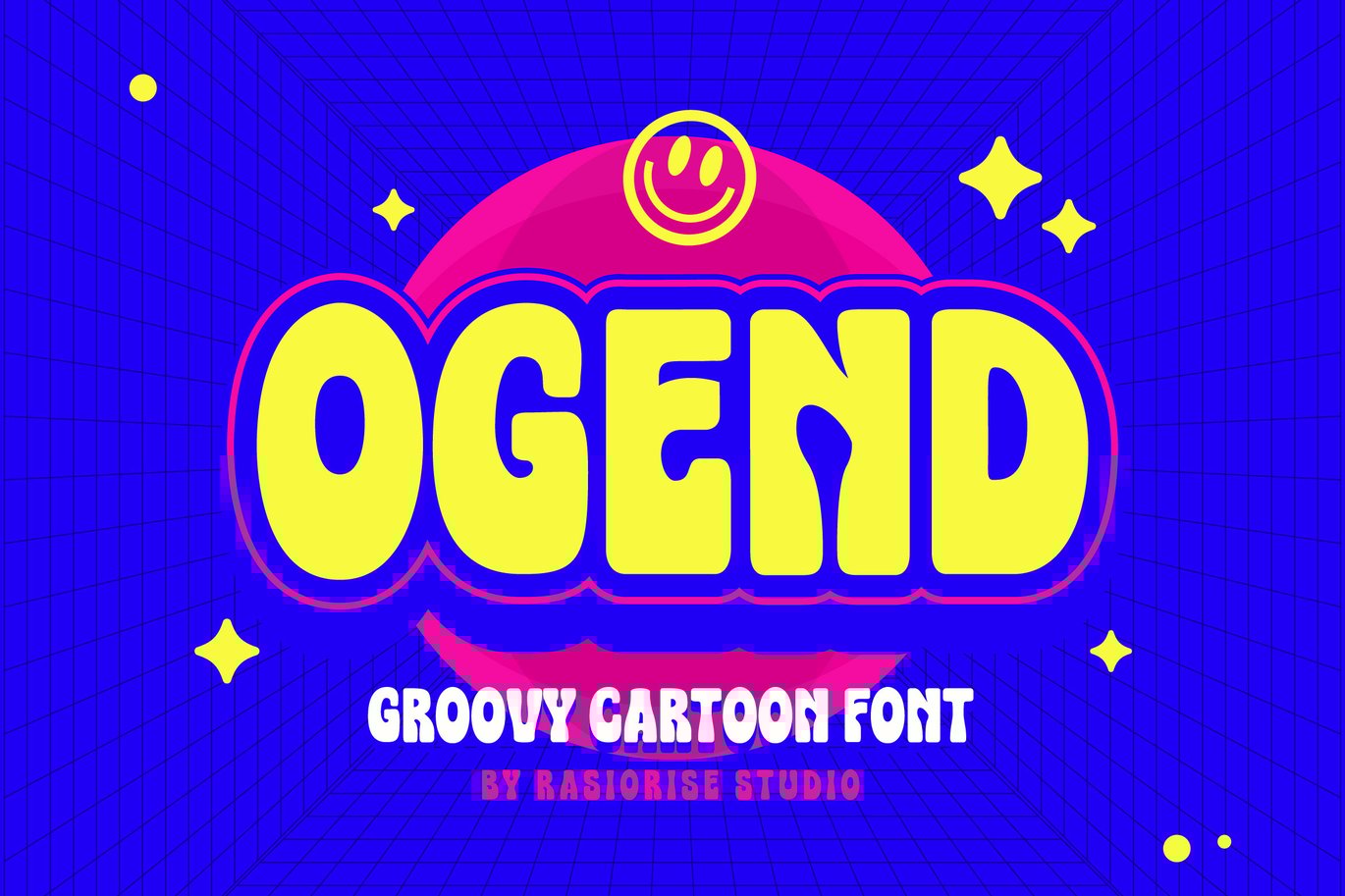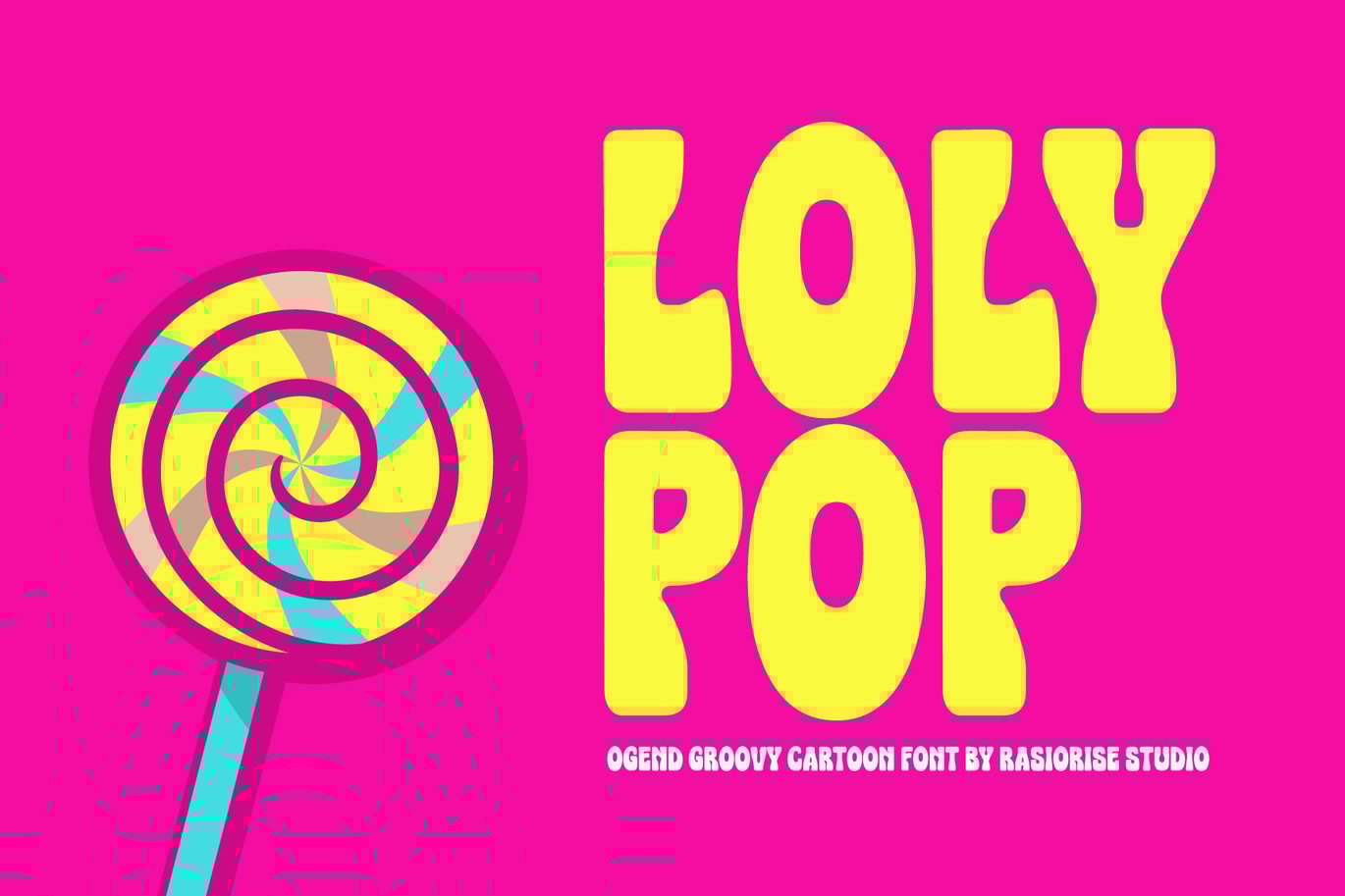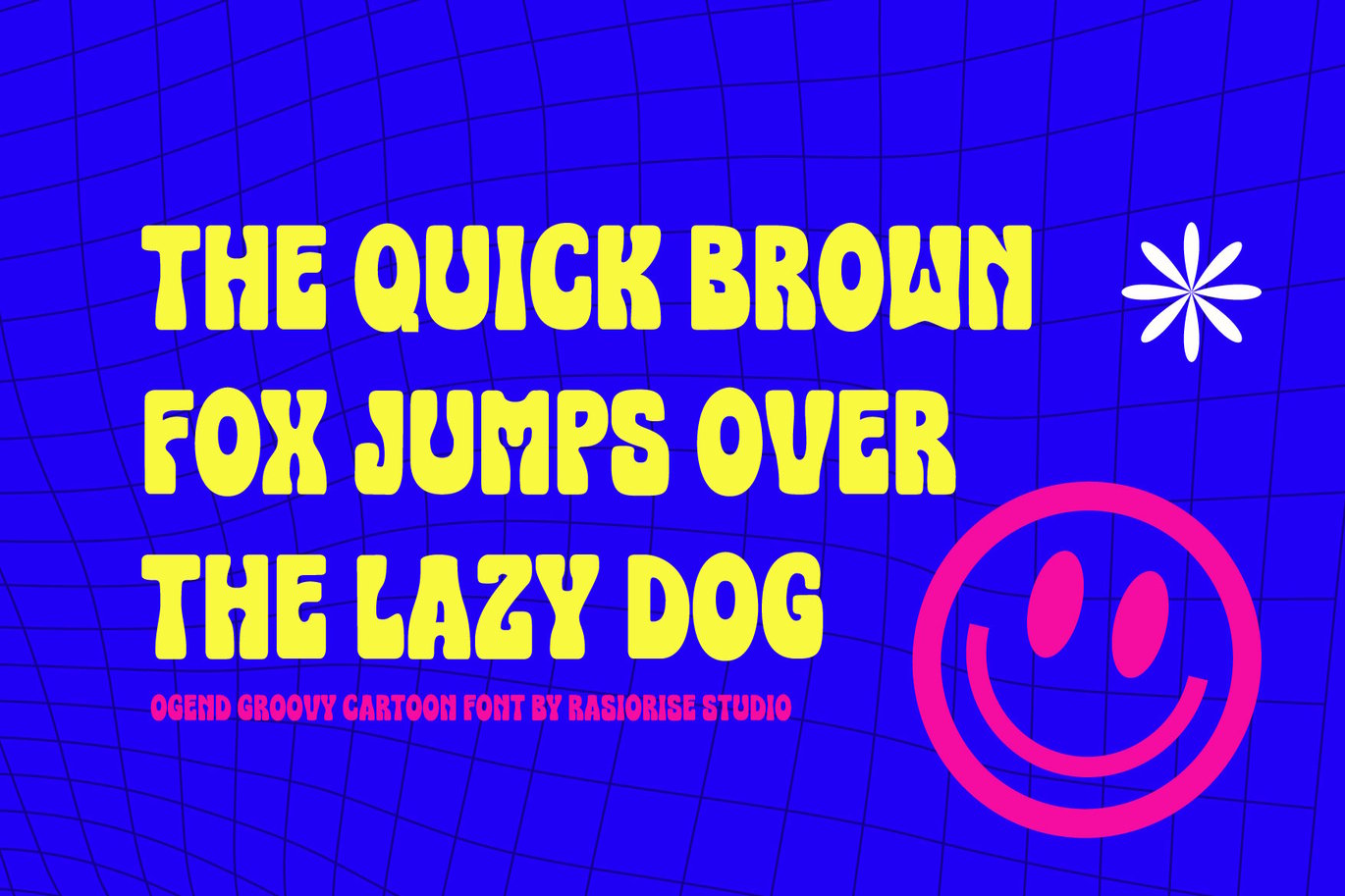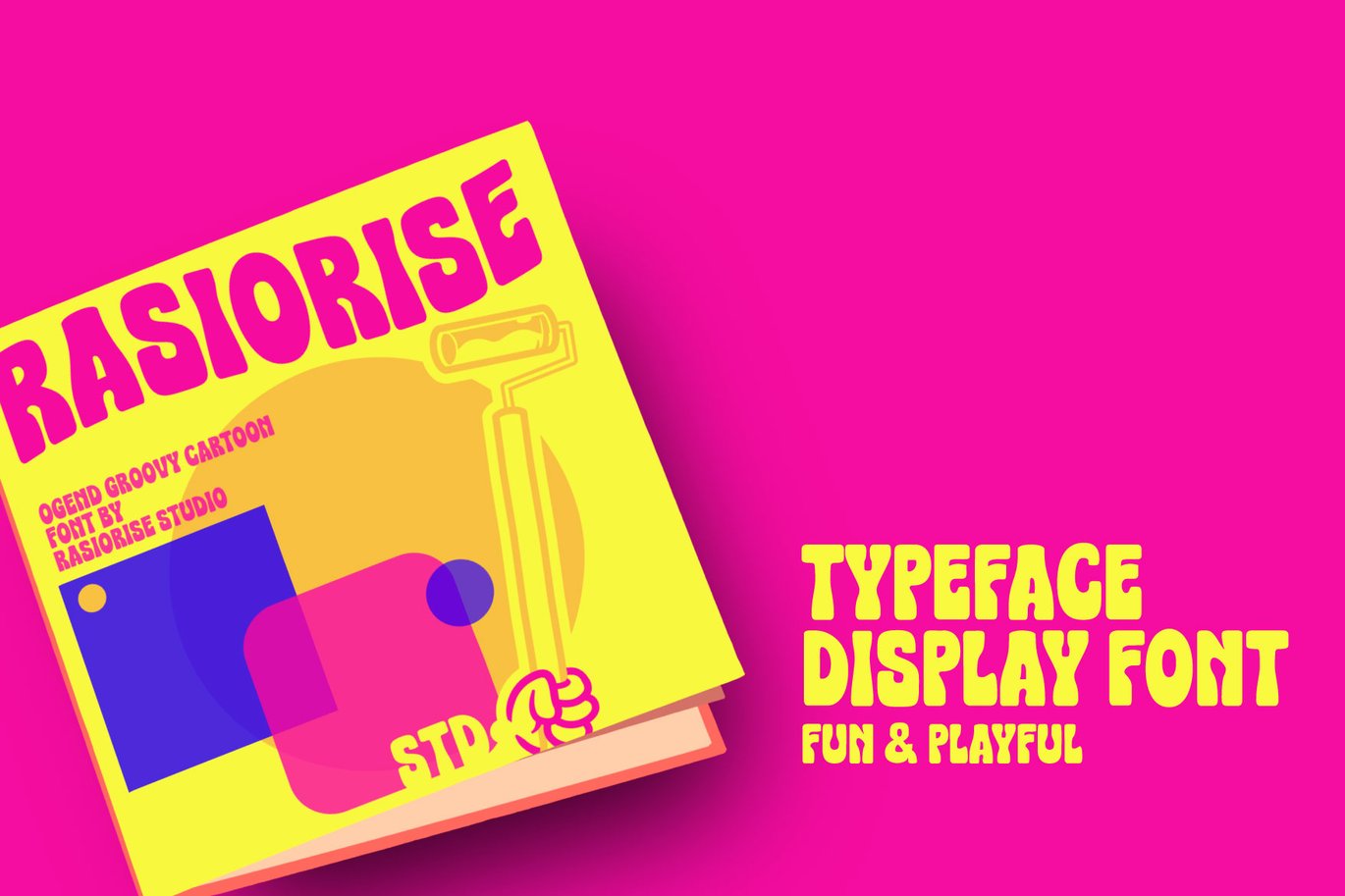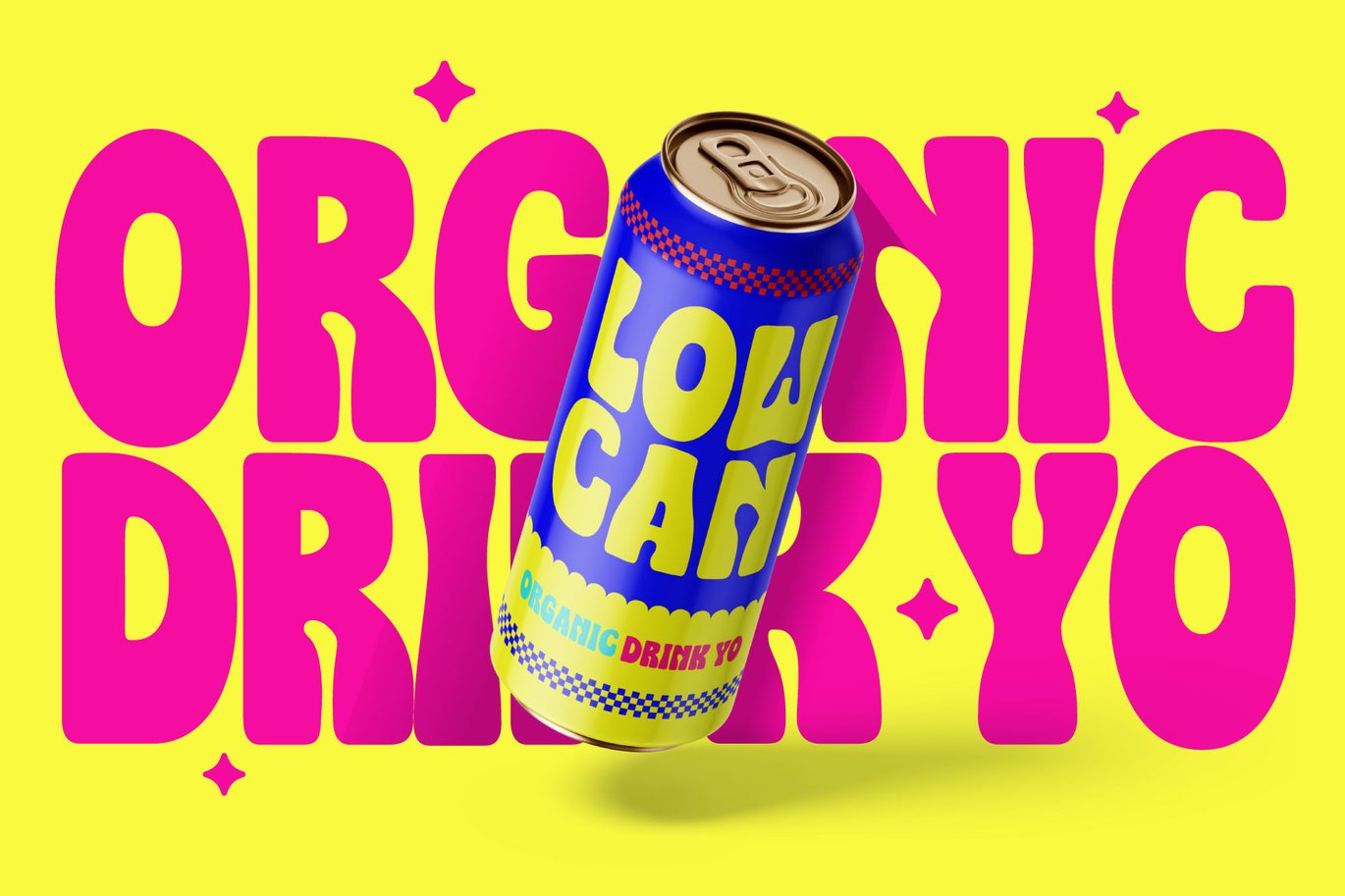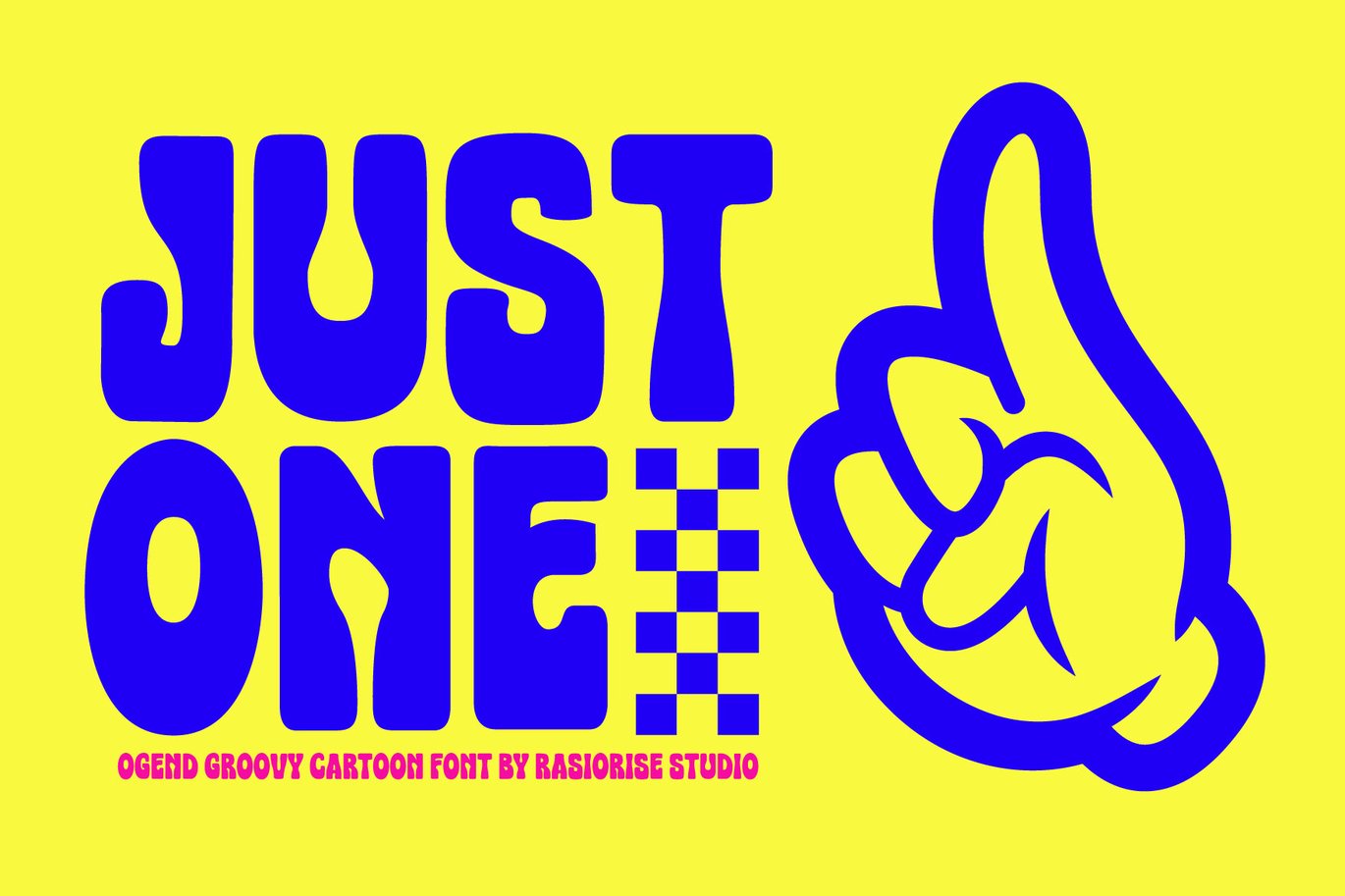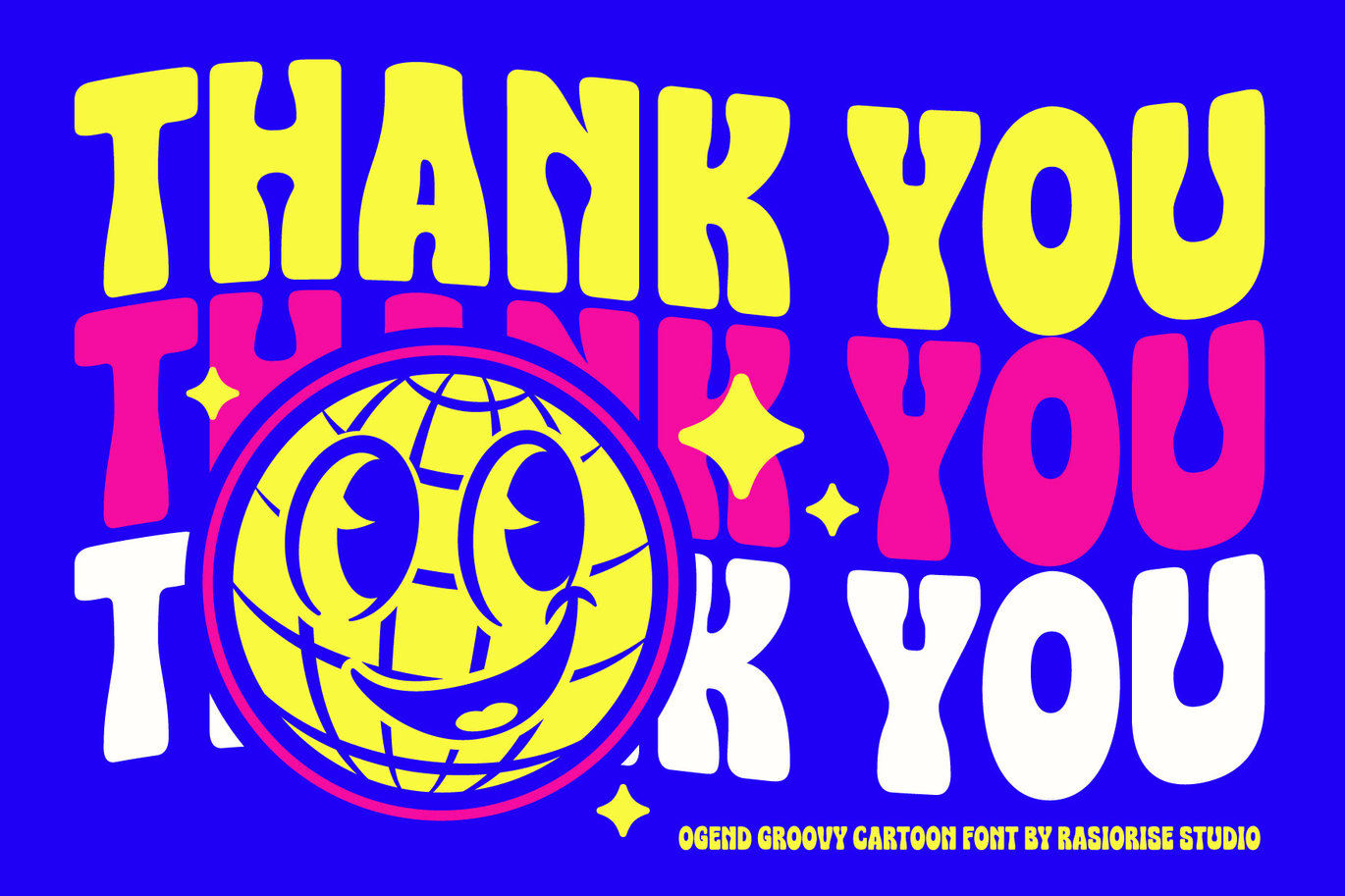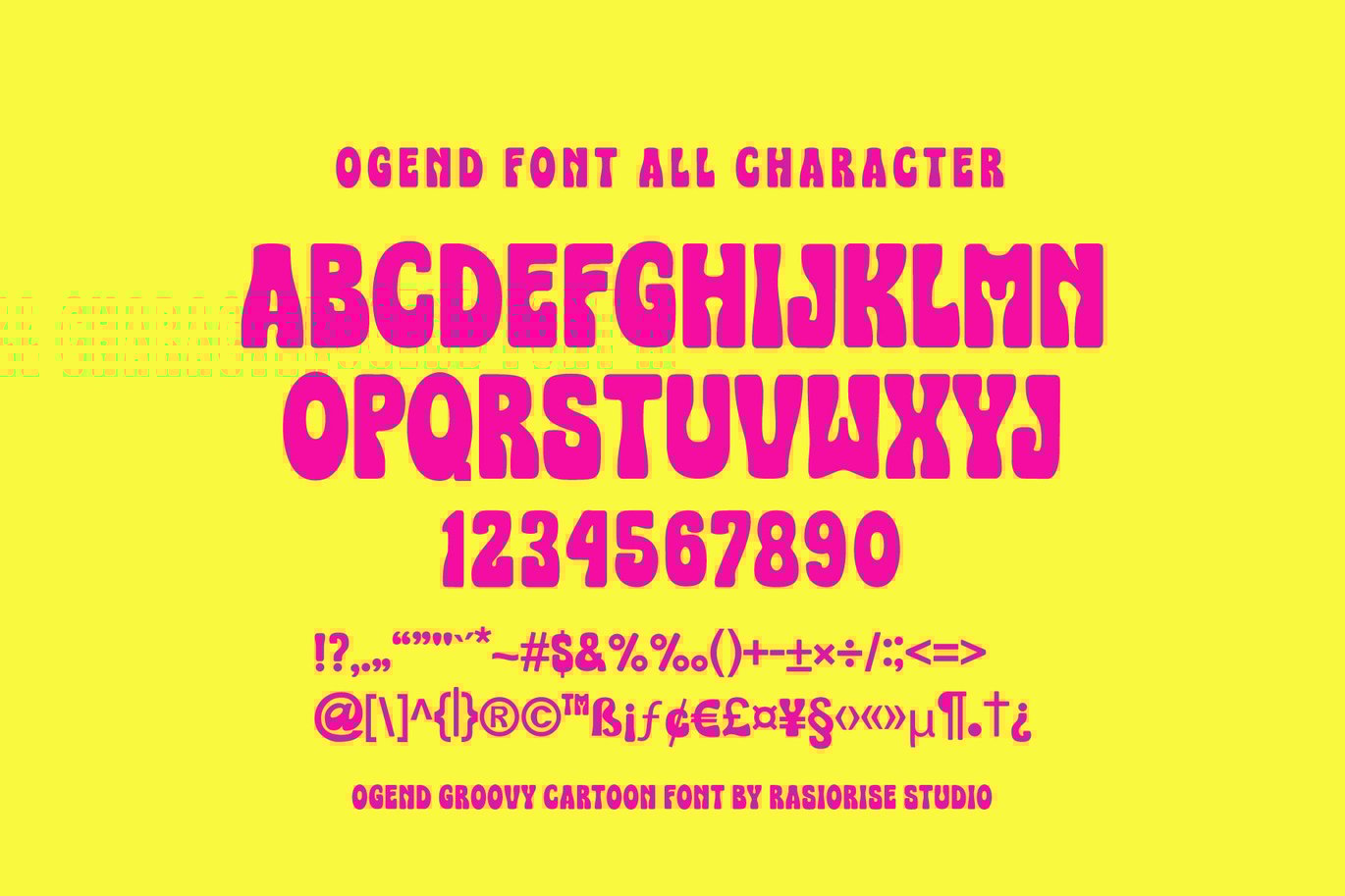
Ogend Groovy Cartoon Font
Introducing Ogend Groovy Cartoon Font By Rasiorise Studio
Ogend has been released for those of you who are looking for a Retro Bold Groovy San-serif font, The font is inspired by the retro classic font style with a few combine to turn them into a bit of a groovy modern style.
Very suitable for Logotype, Book Cover, Children Book, Comic Text, and much more